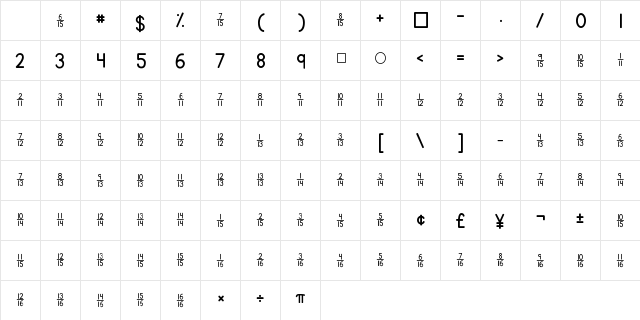
Complete KG Traditional Fractions 2 Regular glyph index. Displaying only characters natively supported by KG Traditional Fractions 2 Regular font.
KG Traditional Fractions 2 is a composed and adaptable typeface that performs quietly and consistently across a wide range of design contexts.